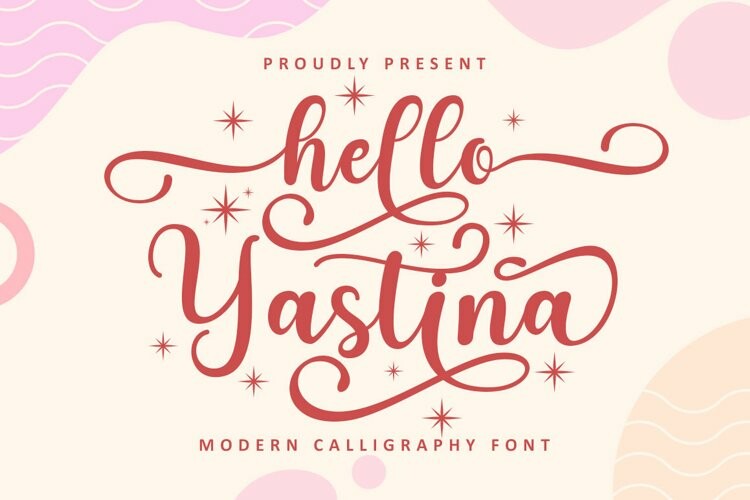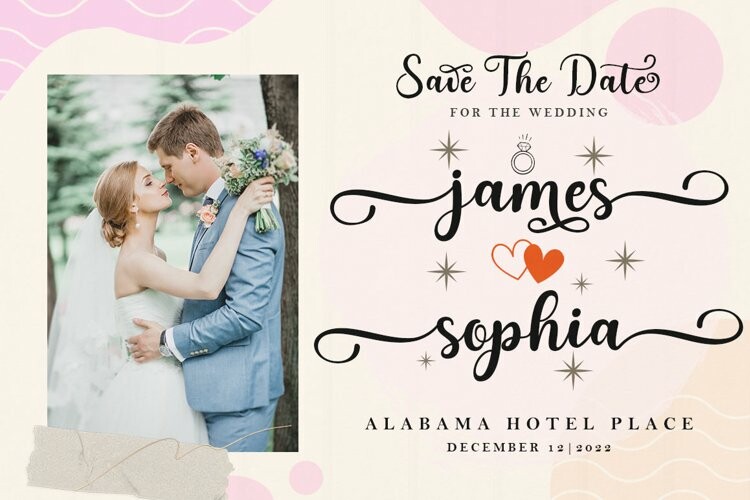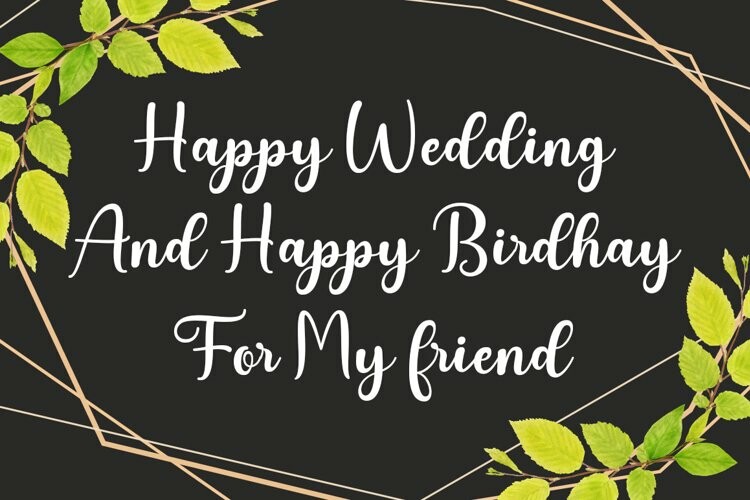
Hello Yustina Script Font
Hello Yustina Script
Hello Yustina Script is an amazing typeface handmade script font that we created in freestyle for those of you who do work and craft.
It’s perfect for any type of work you do with multiple purposes such as logos, wedding invitations, titles, t-shirts, letterheads, signage, labels, news, posters, badges, etc.